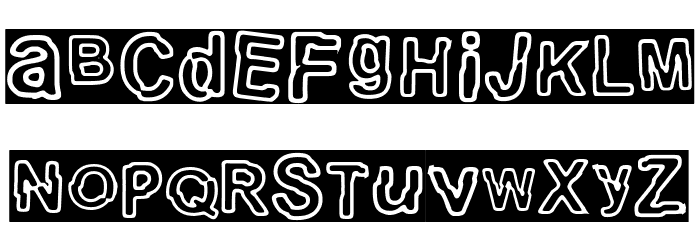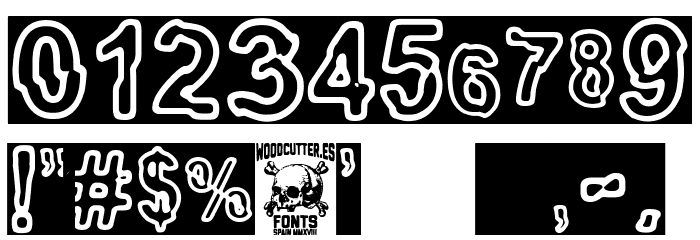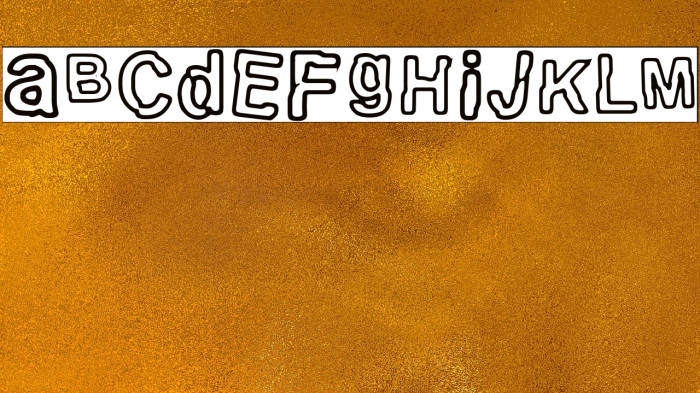
electric Punk Font
This font features a bold, playful design with a hand-drawn aesthetic. Each character is outlined, giving it a distinctive, layered look that stands out against any background. The letters are slightly irregular, adding to the casual and energetic vibe of the font. It combines elements of both modern and retro styles, making it versatile for various creative projects. The numbers and special characters maintain the same lively and bold appearance, ensuring consistency across all text elements.
A bold, playful font with a hand-drawn, outlined style.
- Font: electric Punk
- Proposed Projects: Ideal for music posters, album covers, event flyers, and creative branding projects.
- Overall Style: Modern, Decorative